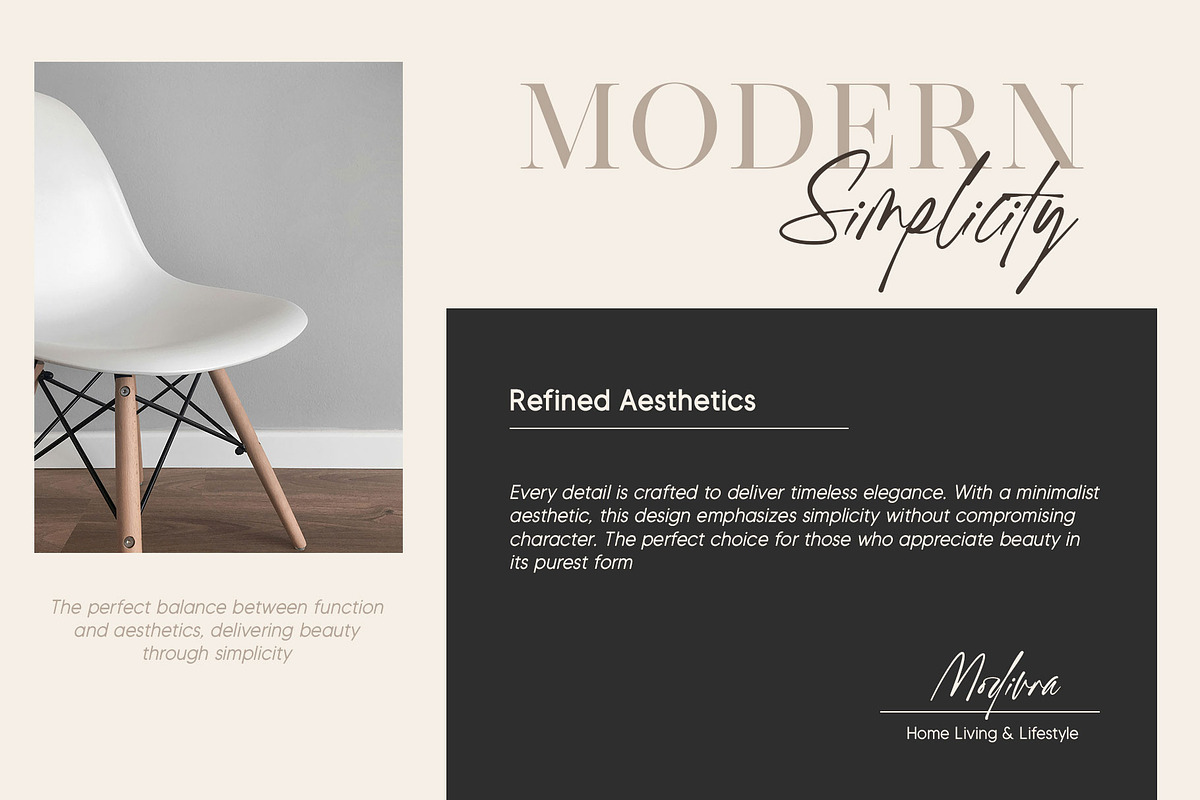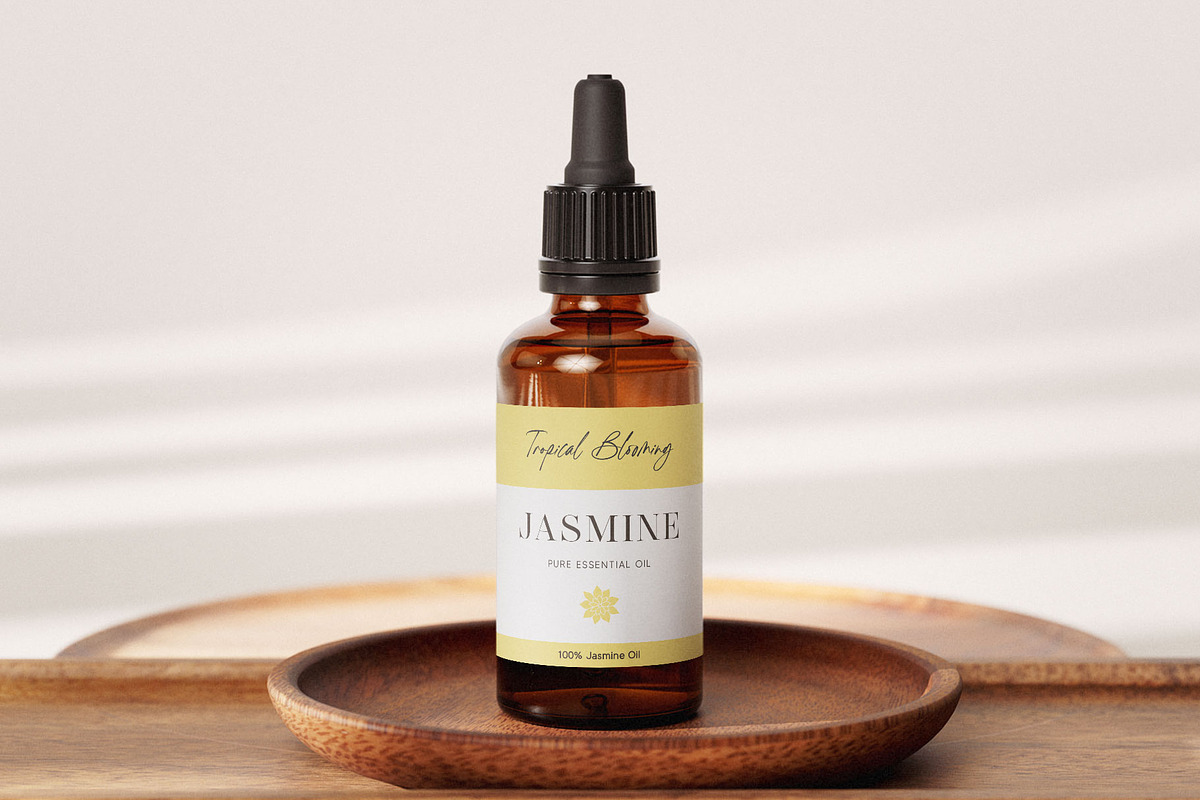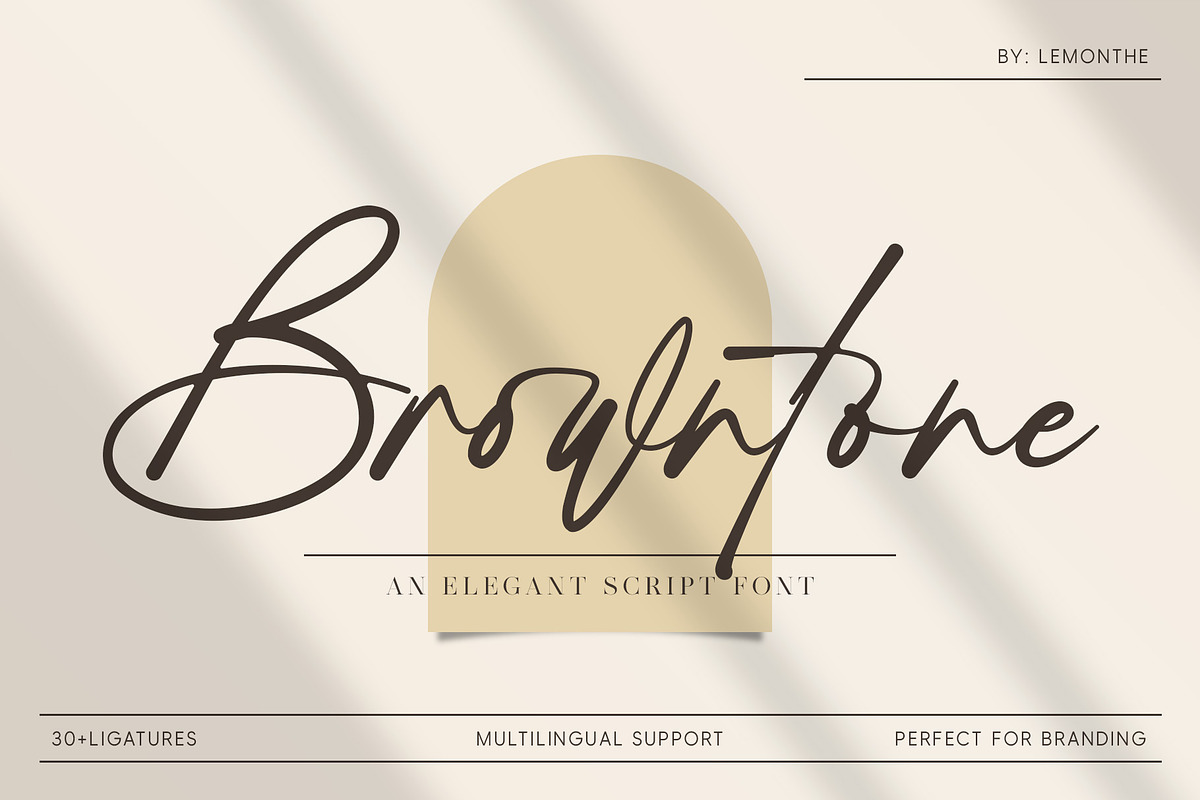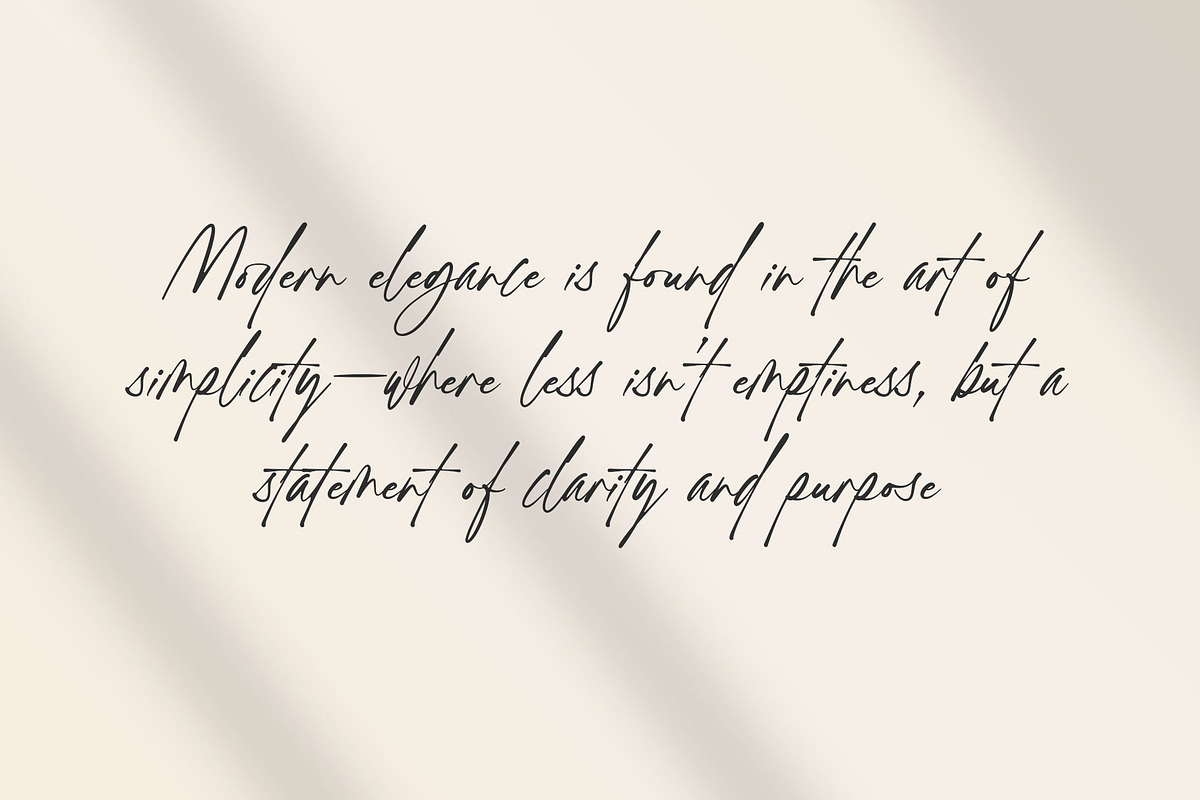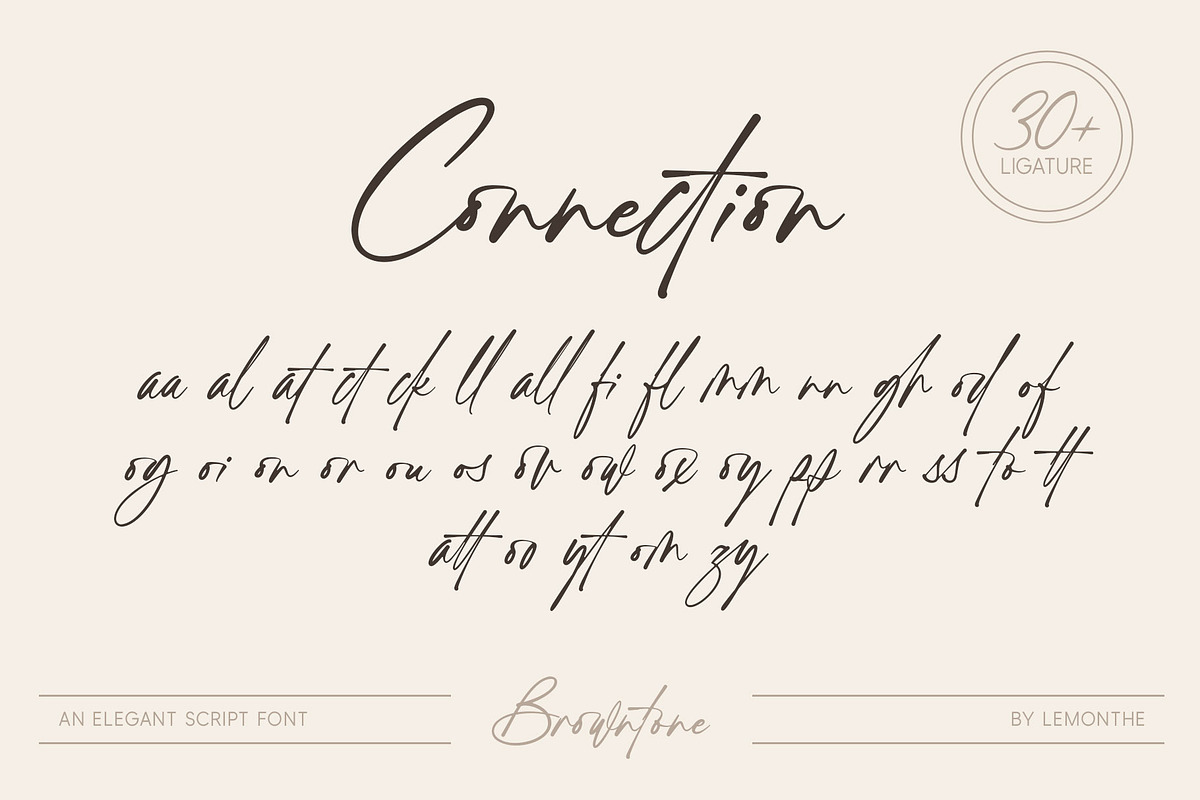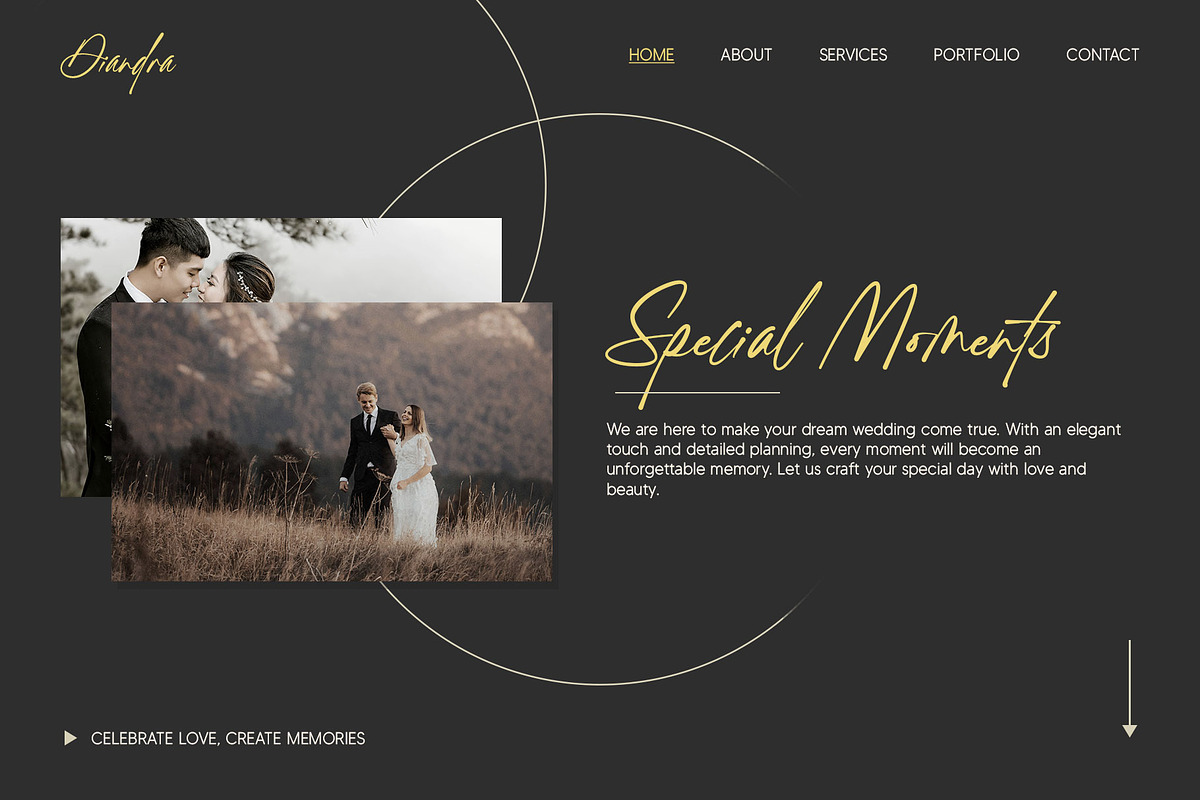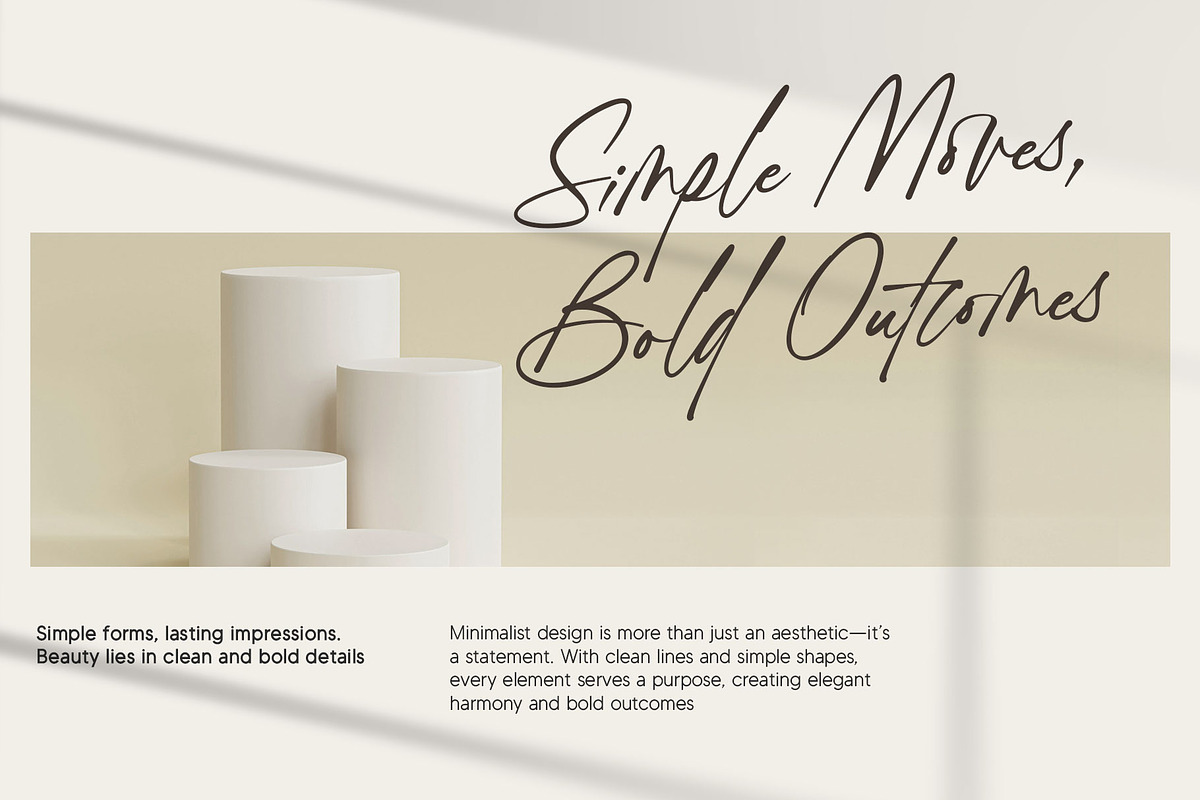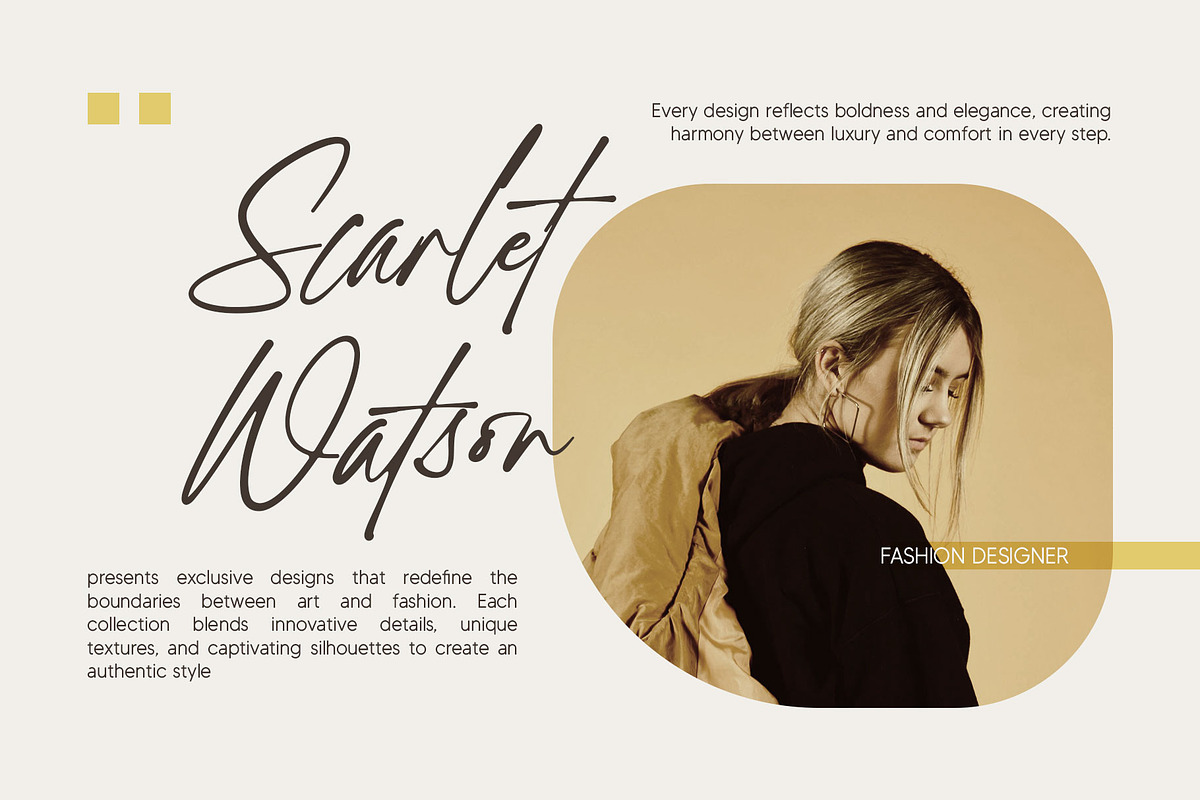
Browntone | Elegant Script
Browntone is an elegant script font designed with smooth and natural letter flow, creating a graceful handwritten impression. This font offers a luxurious and modern appearance, making it ideal for logos, product packaging, invitations, or other design elements that require a classy and professional look.